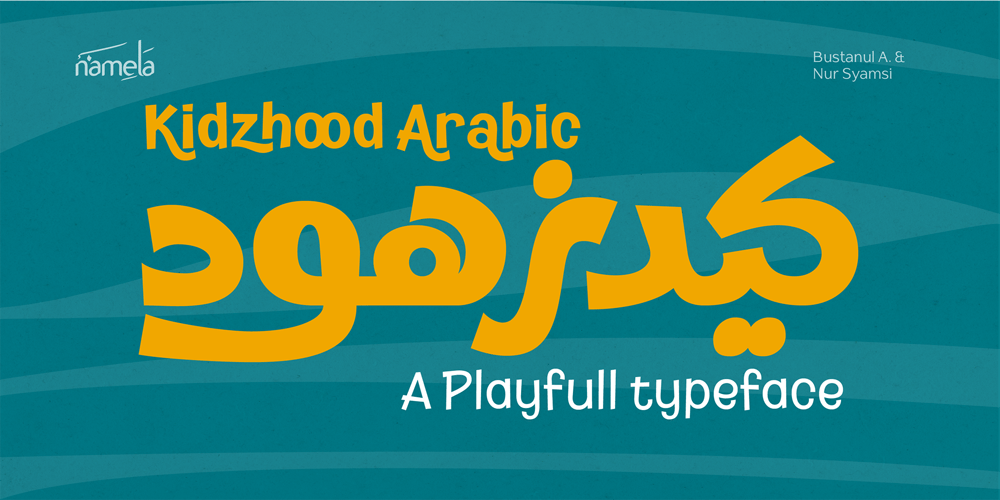
Kidzhood Arabic Font Family was designed by Nur Syamsi, Bustanul Arifin and published by NamelaType. Kidzhood Arabic contains 8 styles and family package options. Kidzhood Arabic is sibling of Kidzhood with the addition of Arabic glyphs, for Arabic, Urdu, and Farsi.The font represent the characters as funny and flexible, just like childish characters can be.Kidzhood equipped with cute letter form and some attractive ligatures, giving it a playful feeling.